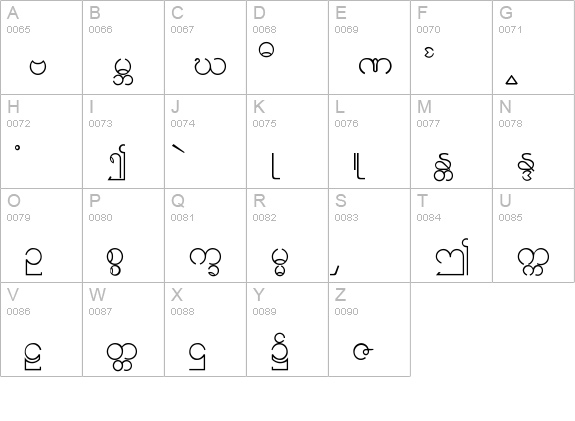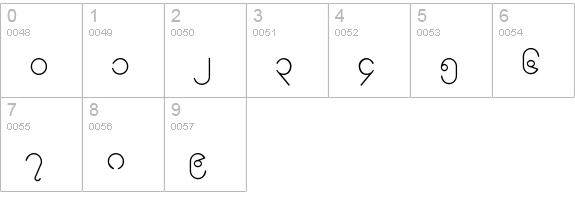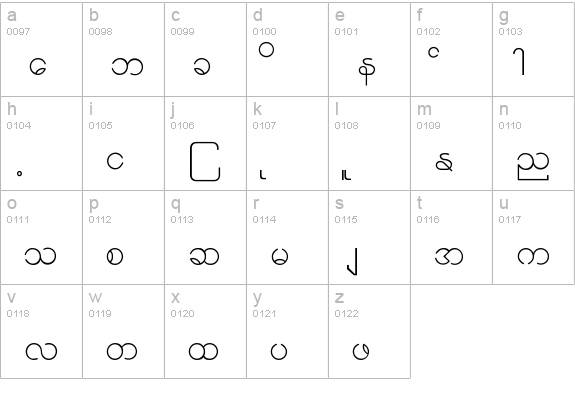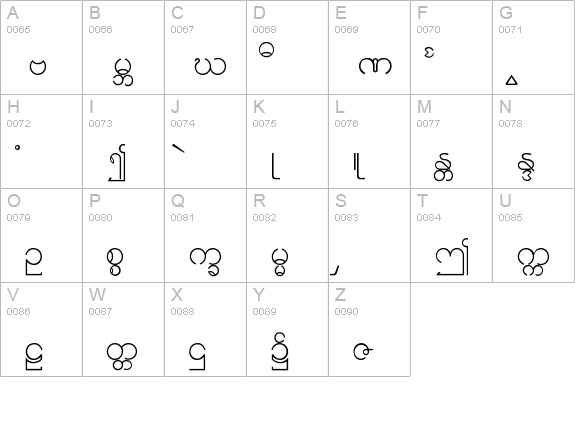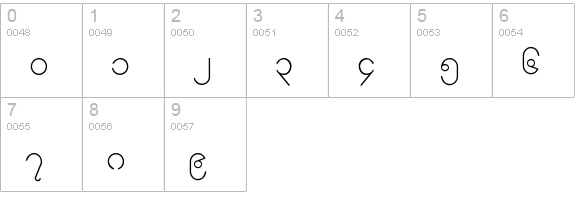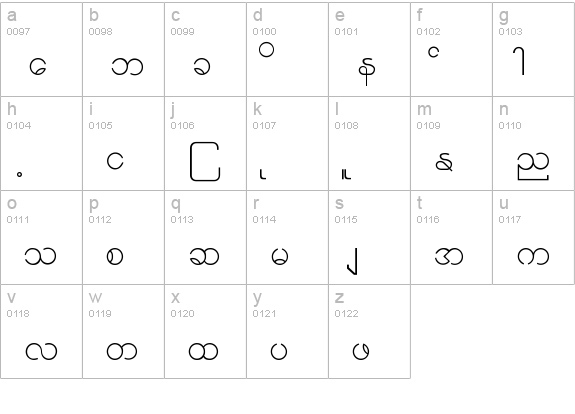
Burmese1_1 Font Details
Burmese1_1 font is a beautiful and elegant typeface that captures the essence of Burmese script with its intricate details and graceful curves. This font is perfect for adding a touch of sophistication to your designs, whether you're working on a print project or creating digital content. The best part about Burmese1_1 font is that it is completely free to download. You can easily access this stunning font at FontsMarket.com, where you can get your hands on this unique typeface without any cost. Whether you're a designer looking to elevate your creations or someone who simply appreciates the beauty of typography, Burmese1_1 font is a must-have addition to your font collection. Download it today and enhance your projects with this exquisite and freely available typeface.